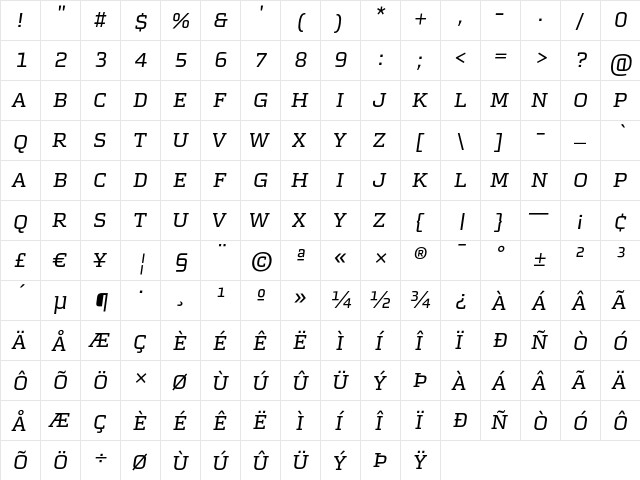
MorganAvec ItalicCaps
Design Context for MorganAvec Typeface
MorganAvec is a composed and adaptable typeface that performs quietly and consistently across a wide range of design contexts. The dynamic lean of this cut emphasises speed and emphasis in any layout.
Pro Tip: Use MorganAvec for emphasis, pull quotes, and subheadings where its slanted energy can add rhythm to the layout.